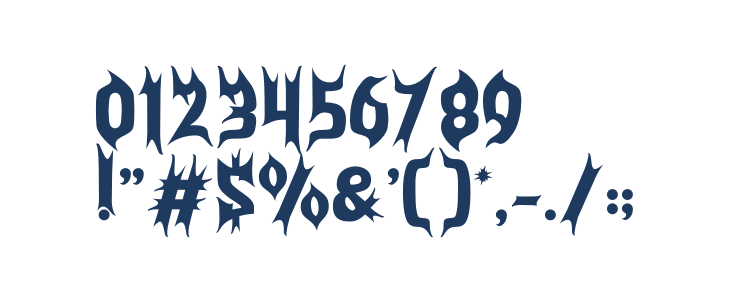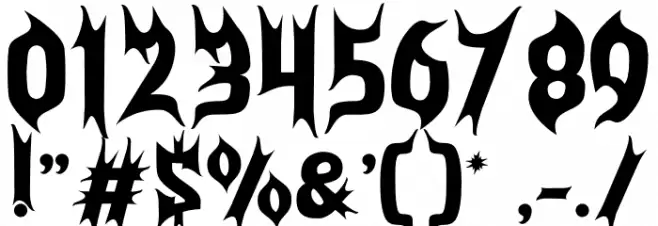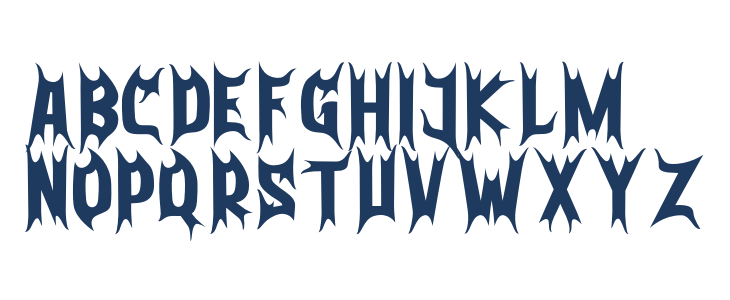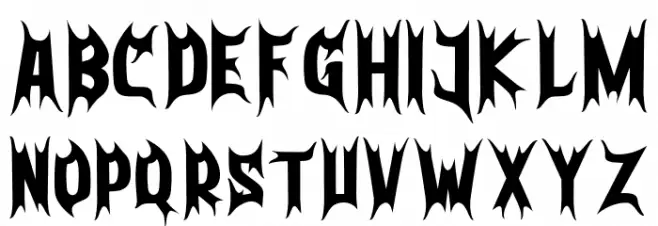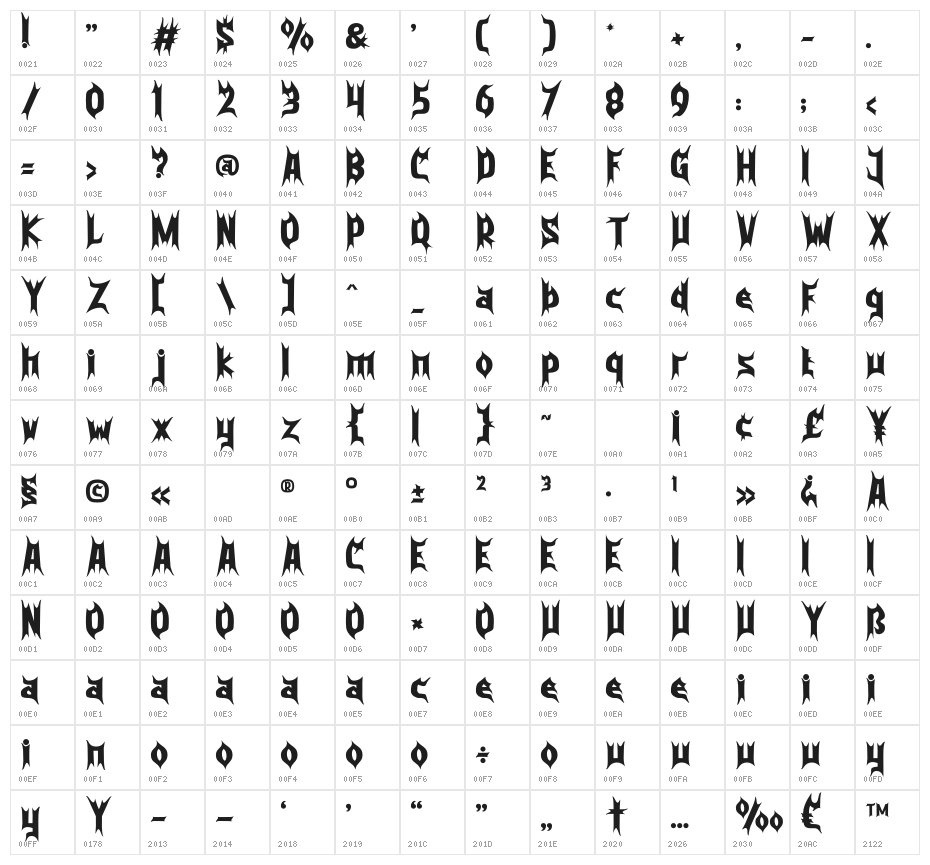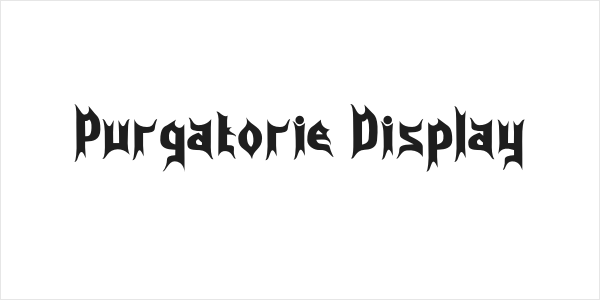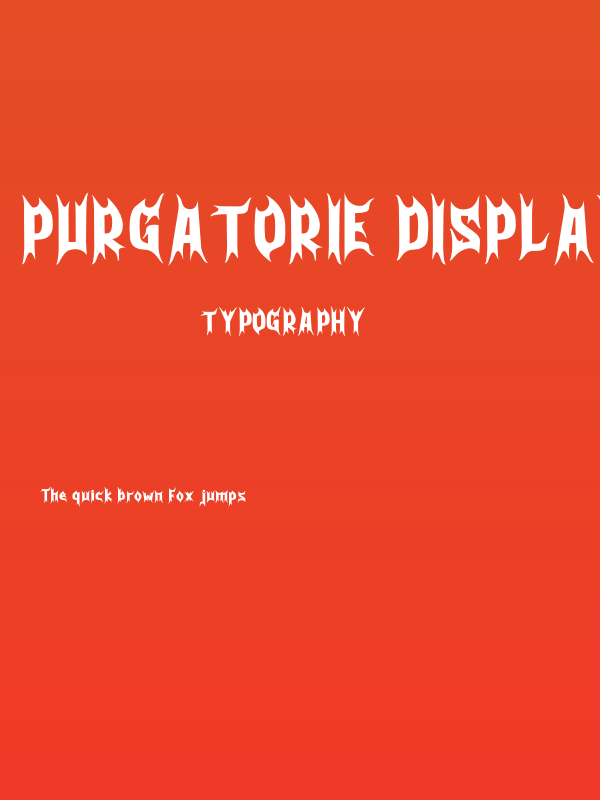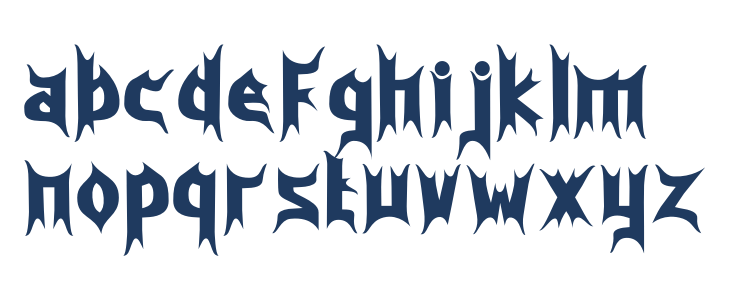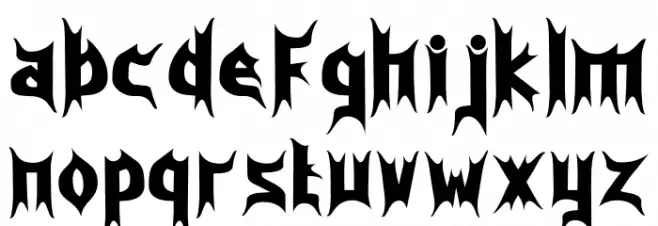
Purgatorie Display Font
A highly stylized, angular display typeface with sharp, spiked serifs and dramatic, exaggerated forms. The characters have a gothic, almost horror-inspired appearance, with consistent boldness and tight spacing. Both uppercase and lowercase letters are included, along with numerals and a variety of punctuation marks.
| Overall Style | Decorative, Gothic, Horror |
| Proposed Projects | Horror movie posters, Halloween event branding, metal band logos, video game titles, gothic-themed merchandise. |